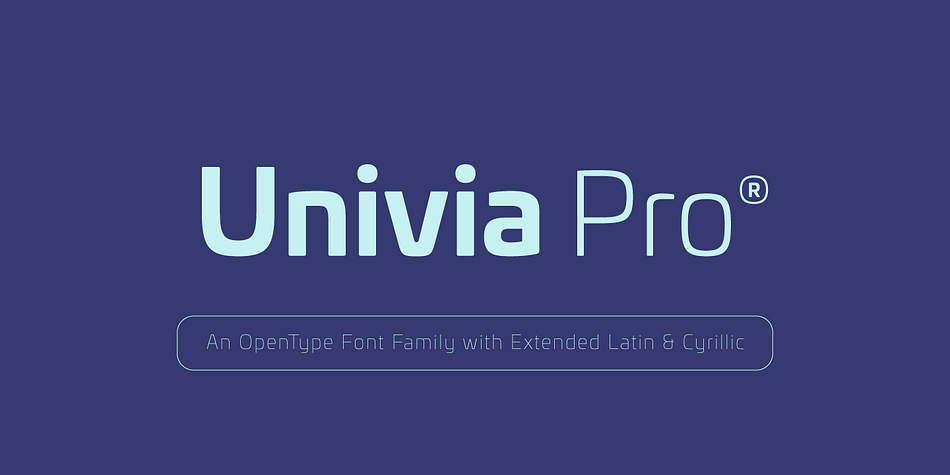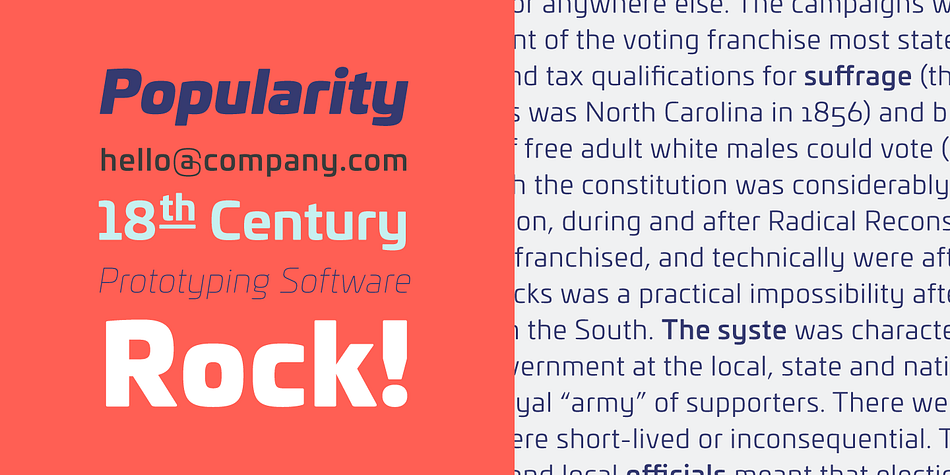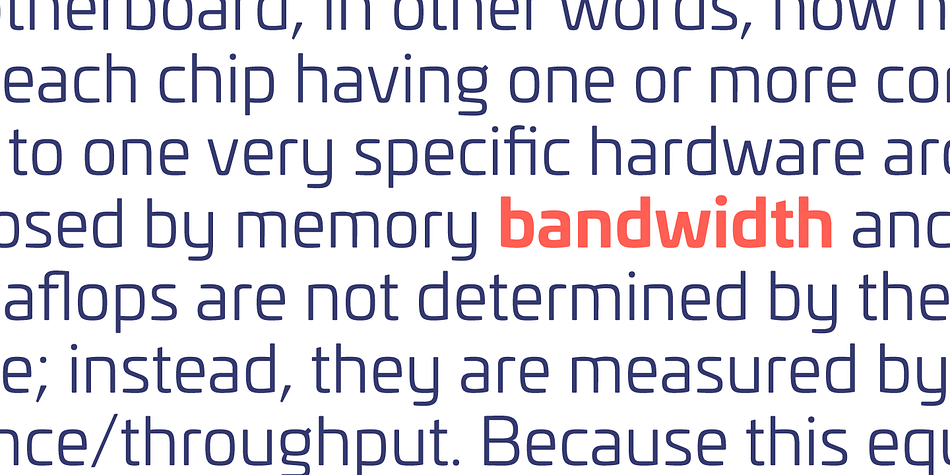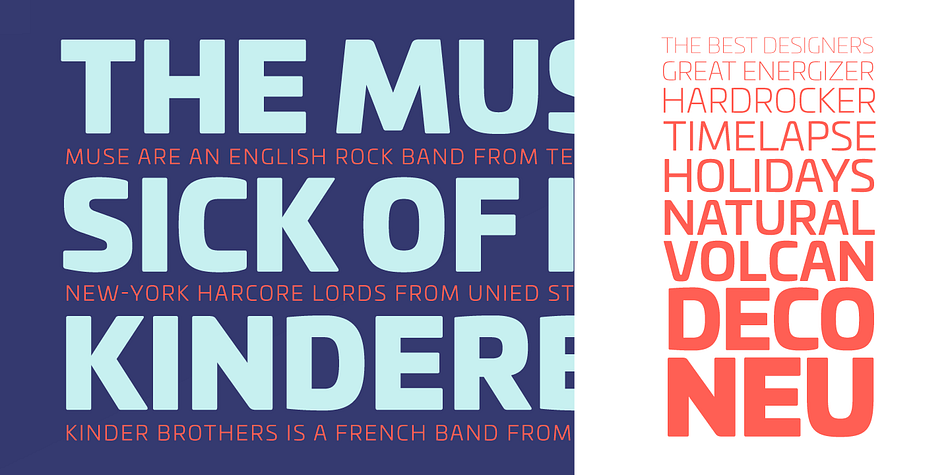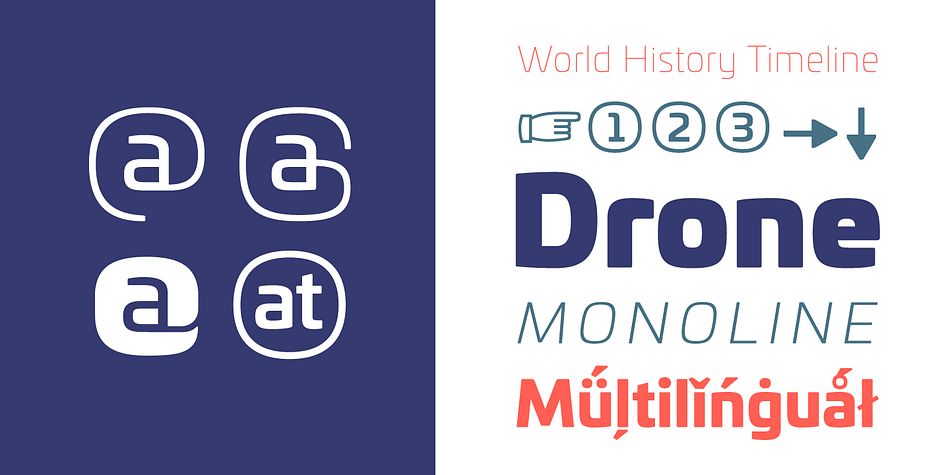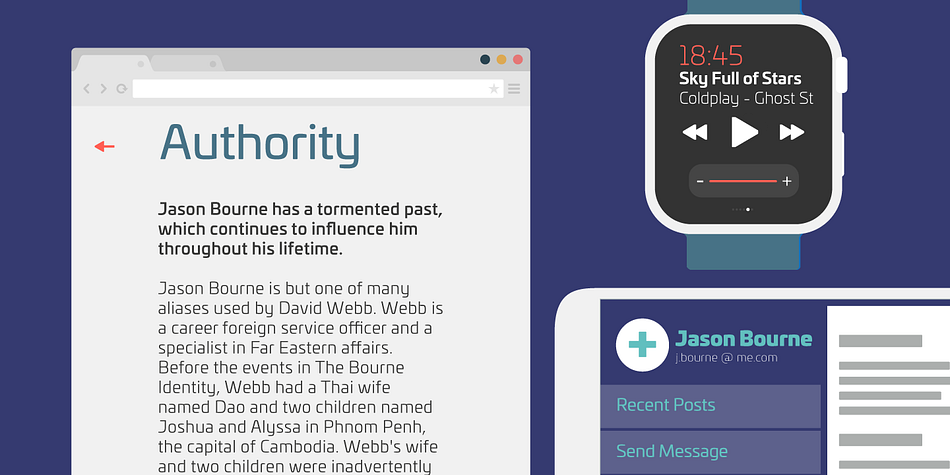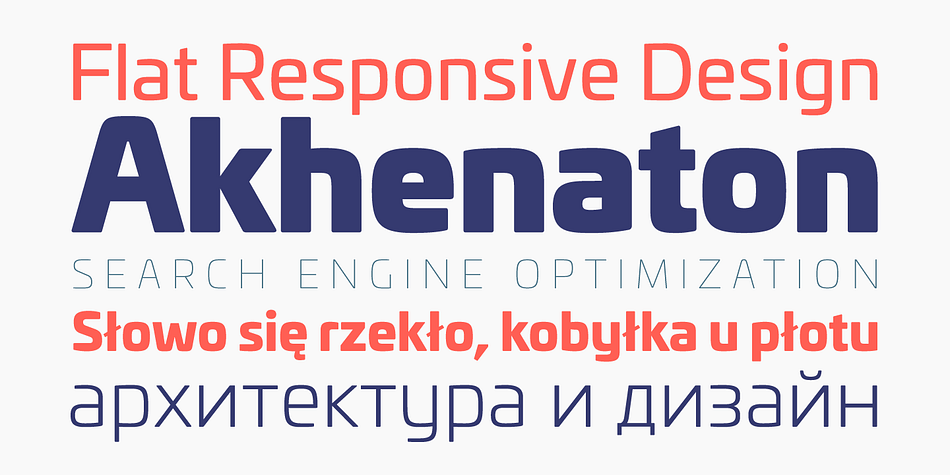
Designed by Olivier Gourvat, Univia Pro is a sans serif font family. This typeface has eighteen styles and was published by Mostardesign.
Univia Pro is a new contemporary OpenType font family with modernity and versatility in mind. Distinctive with its pleasant look extremely modern, Univia Pro has a lot of personalty mostly achieved by smooth curves and round corners that form a very cohesive style of the entire family.
Univia Pro is perfect both for display and text use and due to its ultra modern look, it is more than excellent for e-books, web-sites, user interface font, mobile apps etc.
Univia Pro font family is heavily equipped with OpenType features: case sensitive, scientific superiors and inferiors, standard ligatures, old style, lining figures, proportional and tabular figures, slashed zeros, stylistic sets. It also provides broad language support.
Designed by Olivier Gourvat, the font family offers 18 variations (9 weights plus italics): Thin, Thin Italic, Ultra Light, Ultra Light Italic, Light, Light Italic Book, Book Italic, Regular, Regular Italic, Bold, Bold Italic, Black, Black Italic, Ultra and Ultra Italic.